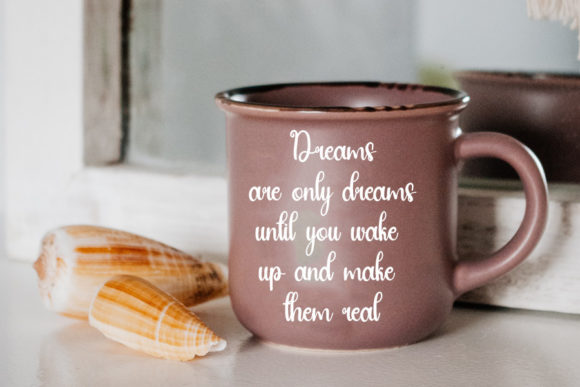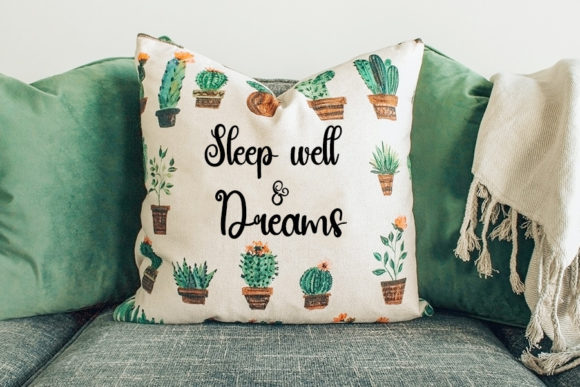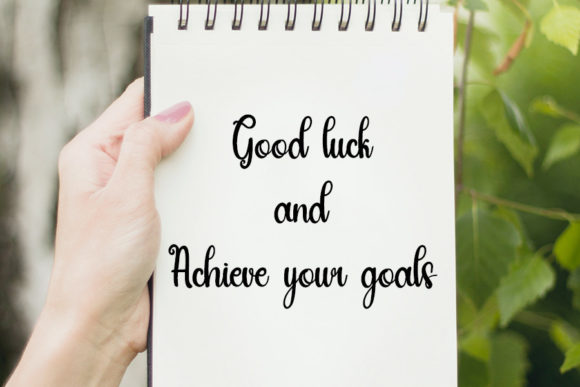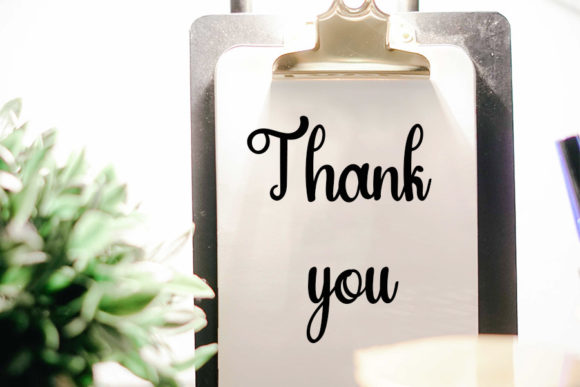
Discover the Charm of Antique Font: A Timeless Classic for Modern Designs
Are you a designer or crafter looking for a font that exudes elegance and sophistication? Look no further than Antique Font, a beautiful handwritten font that is sure to become a true favorite in your collection. With its classy calligraphic influences and contemporary feel, Antique Font is the perfect choice for a wide range of design projects.
The Story Behind Antique Font
Antique Font is a carefully crafted font that is designed to evoke the feeling of traditional calligraphy, while still feeling fresh and modern. Its unique blend of classic and contemporary elements makes it an ideal choice for designers who want to add a touch of sophistication to their work. Whether you’re creating a logo, branding materials, or digital content, Antique Font is sure to impress.
Key Features of Antique Font
- Handwritten with love: Antique Font is a handwritten font, carefully crafted to ensure that every letter and character is unique and full of personality.
- Classy calligraphic influences: Antique Font draws inspiration from traditional calligraphy, giving it a sophisticated and elegant feel.
- Contemporary and fresh: Despite its classic influences, Antique Font feels modern and fresh, making it perfect for designers who want to create something new and exciting.
- Versatile: Antique Font is a versatile font that can be used for a wide range of design projects, from logos and branding materials to digital content and more.
Why Designers and Crafters Love Antique Font
So why do designers and crafters love Antique Font? For starters, its unique blend of classic and contemporary elements makes it a standout choice for designers who want to create something truly unique. Additionally, its handwritten nature gives it a personal touch that is hard to find with more traditional fonts. Whether you’re creating a handmade craft or a digital design, Antique Font is sure to add a touch of elegance and sophistication.
Using Antique Font in Your Designs
Antique Font is easy to use and can be incorporated into a wide range of design projects. Here are a few ideas to get you started:
- Logos and branding materials: Use Antique Font to create a logo or branding materials that exude elegance and sophistication.
- Digital content: Add a touch of class to your digital content, such as blog posts, social media graphics, and more.
- Handmade crafts: Use Antique Font to add a personal touch to your handmade crafts, such as journals, cards, and more.
- Wedding and event designs: Antique Font is a popular choice for wedding and event designs, adding a touch of romance and elegance to invitations, programs, and more.
Tips and Tricks for Getting the Most Out of Antique Font
Here are a few tips and tricks for getting the most out of Antique Font:
- Experiment with different sizes and colors: Antique Font looks great in a variety of sizes and colors, so don’t be afraid to experiment and find the perfect combination for your design.
- Pair it with other fonts: Antique Font pairs well with a variety of other fonts, so try combining it with other fonts to create a unique and interesting look.
- Use it sparingly: Because Antique Font is a decorative font, it’s best to use it sparingly to add emphasis and interest to your design.
Antique Font is a beautiful and versatile font that is sure to become a true favorite in your collection. With its classy calligraphic influences and contemporary feel, it’s the perfect choice for designers and crafters who want to add a touch of elegance and sophistication to their work. Whether you’re creating a logo, digital content, or handmade craft, Antique Font is sure to impress.